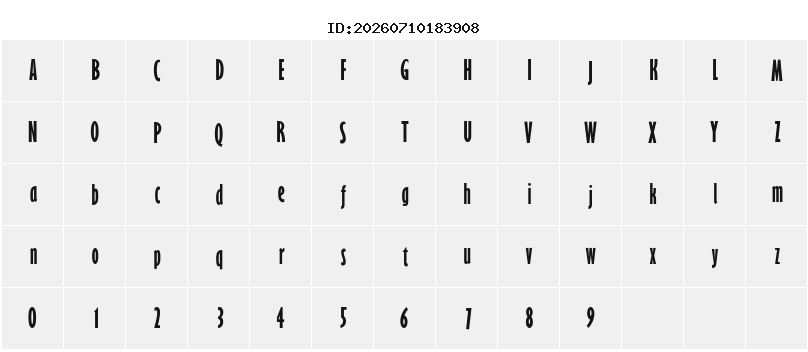
• Font Name: GarrisonSans-ExtraCond
• Full Font Name: GarrisonSans-ExtraCond
• PostScript Name: GarrisonSans-ExtraCond
About GarrisonSans-ExtraCond.ttf
GarrisonSans-ExtraCond.ttf is a modern, elegant sans-serif font designed for ultimate readability and visual harmony. Perfect for branding, headlines, web design, and print materials.